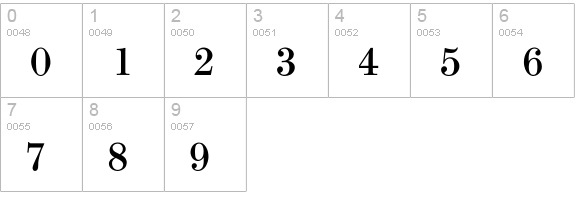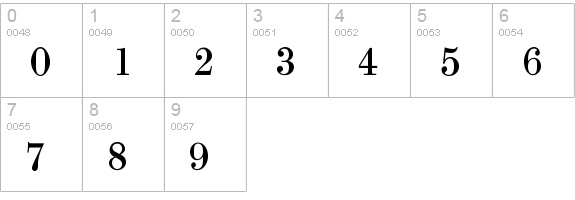
Modern BQ Extended Font Details
Modern BQ Extended is a distinctive, extended-width variant in the Modern typeface family \xE2\x80\x94 well suited to design and typography projects.
Modern BQ Extended is a sleek and stylish font that exudes sophistication and elegance. With its clean lines and sharp edges, this typeface is perfect for creating a contemporary and professional look in your designs. The extended version of Modern BQ adds an extra touch of class, making it ideal for headings, titles, and other prominent text elements. What sets Modern BQ Extended apart is not just its modern aesthetic, but also its versatility. Whether you're designing a website, a poster, a logo, or any other project, this font will elevate your work to the next level. Its extended character set allows for a wide range of design possibilities, ensuring that your text will always stand out. The best part? Modern BQ Extended is completely free to download at FontsMarket.com. This means that you can start using this stylish font in your projects right away, without having to worry about any additional costs. Don't miss out on this opportunity to enhance your designs with the sleek and sophisticated Modern BQ Extended font today.